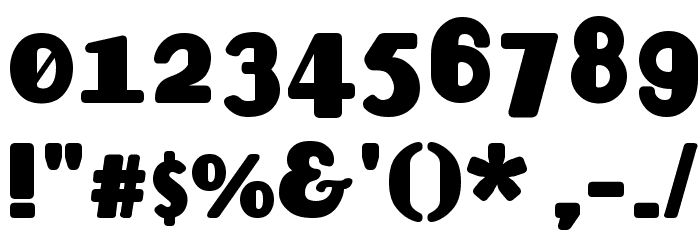
Lemondrop Bold Font
This playful and bold typeface features thick, rounded characters with a whimsical touch. The letters are uniformly bold, creating a strong visual impact, while the rounded edges add a friendly and approachable feel. The font maintains a consistent weight throughout, ensuring readability and balance. Its unique style is characterized by subtle curves and a slightly condensed form, making it suitable for eye-catching designs. The numbers and special characters follow the same bold and rounded style, ensuring cohesion across all elements.
A bold, rounded typeface with a playful and whimsical style.
- Proposed Projects: Ideal for children's books, playful branding, posters, and creative advertising campaigns.
- Width: Condensed
- Overall Style: Playful, Whimsical